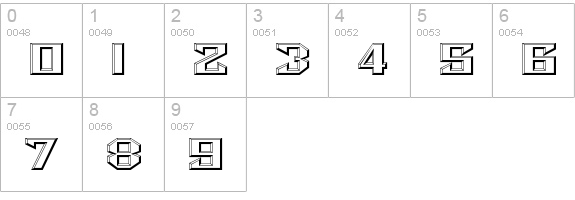
BulwarkNF is a versatile and modern display font that exudes strength and elegance. With its bold letterforms and clean lines, this font is perfect for making a bold statement in your design projects. Whether you're creating a logo, poster, or website, BulwarkNF will add a touch of sophistication to your work. What makes BulwarkNF even more appealing is that it is available for free download at FontsMarket.com. Yes, you read that right - this high-quality font can be yours at no cost! Don't miss out on the opportunity to enhance your designs with the striking beauty of BulwarkNF. Download it today and take your projects to the next level!